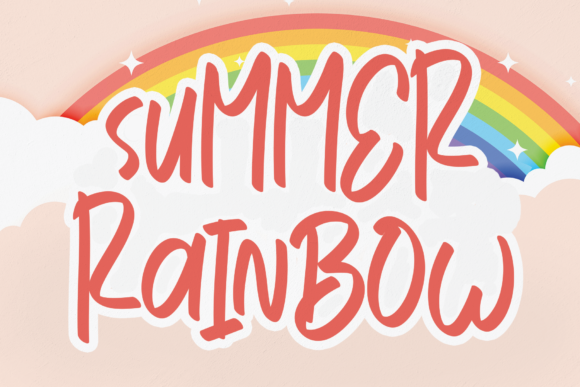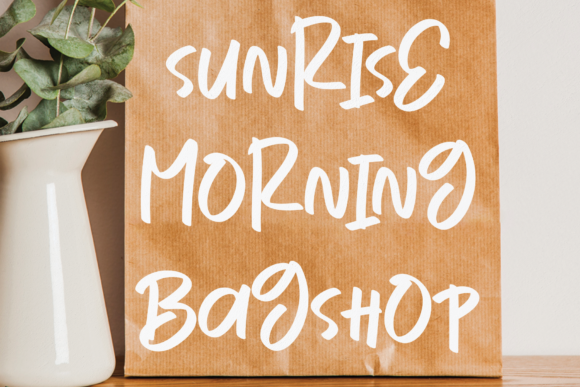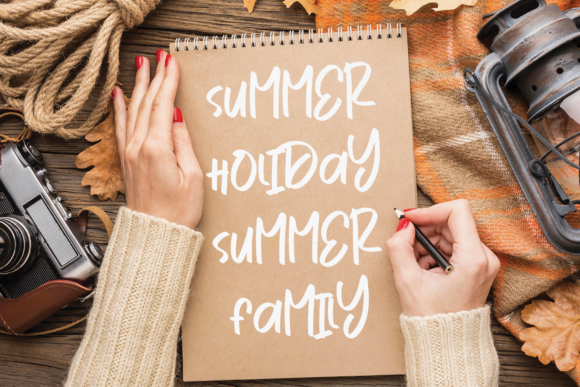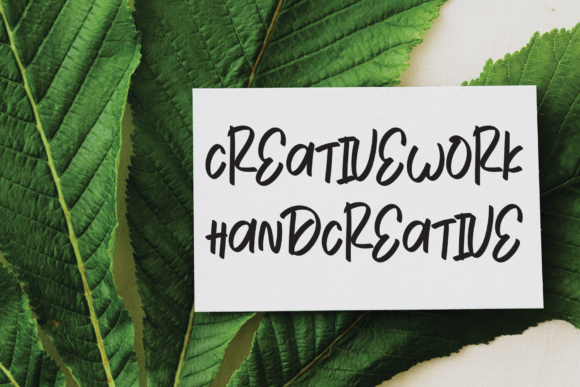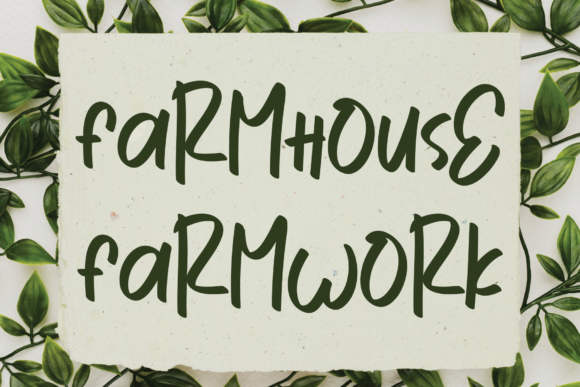
Summer Rainbow Font
About Summer Rainbow Font
Summer rainbow is a creative and fun handwritten font that gives off playful and chic vibes. It is perfectly suitable for logos, watermarks, business cards, apparel designs, and more!